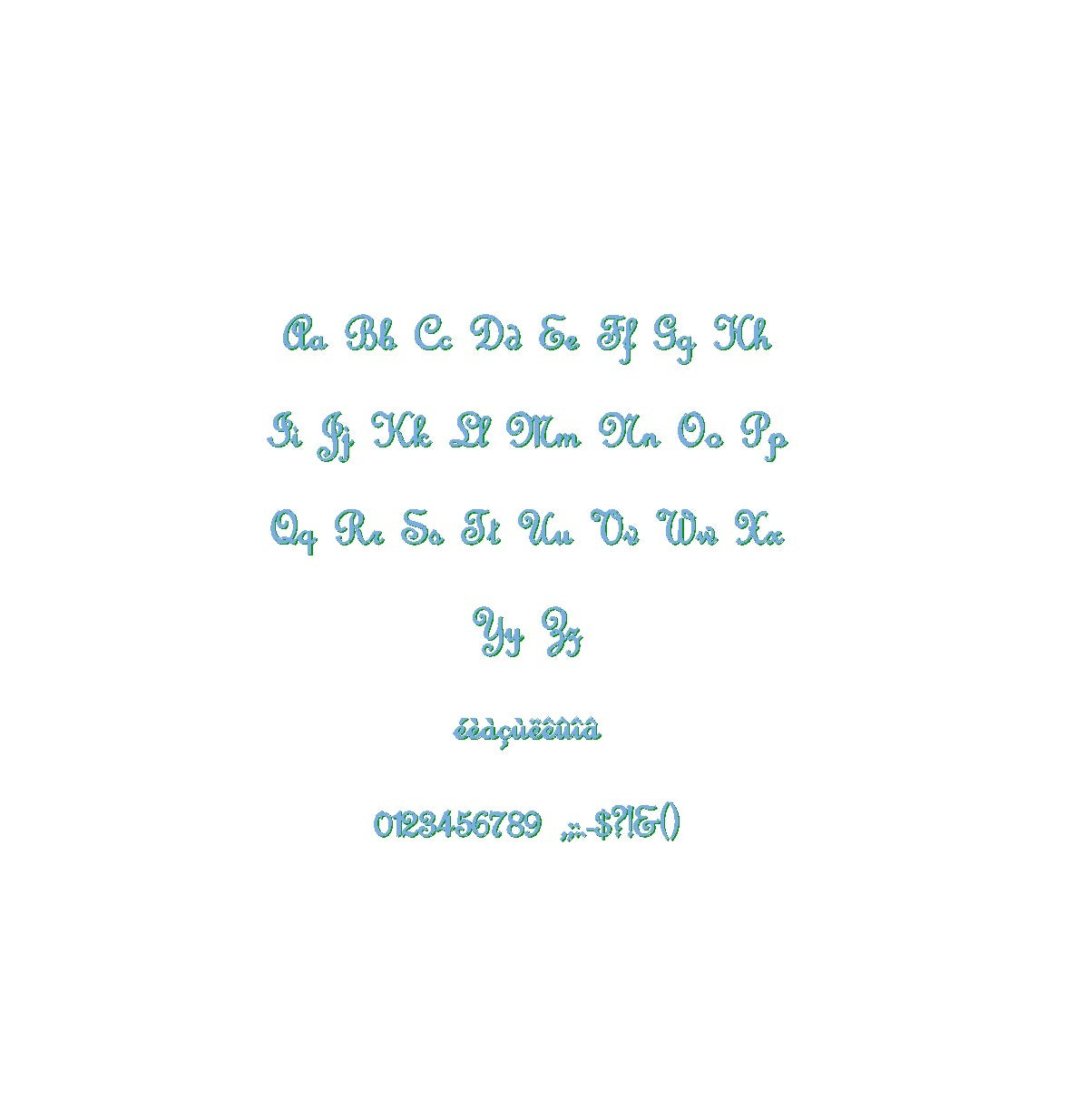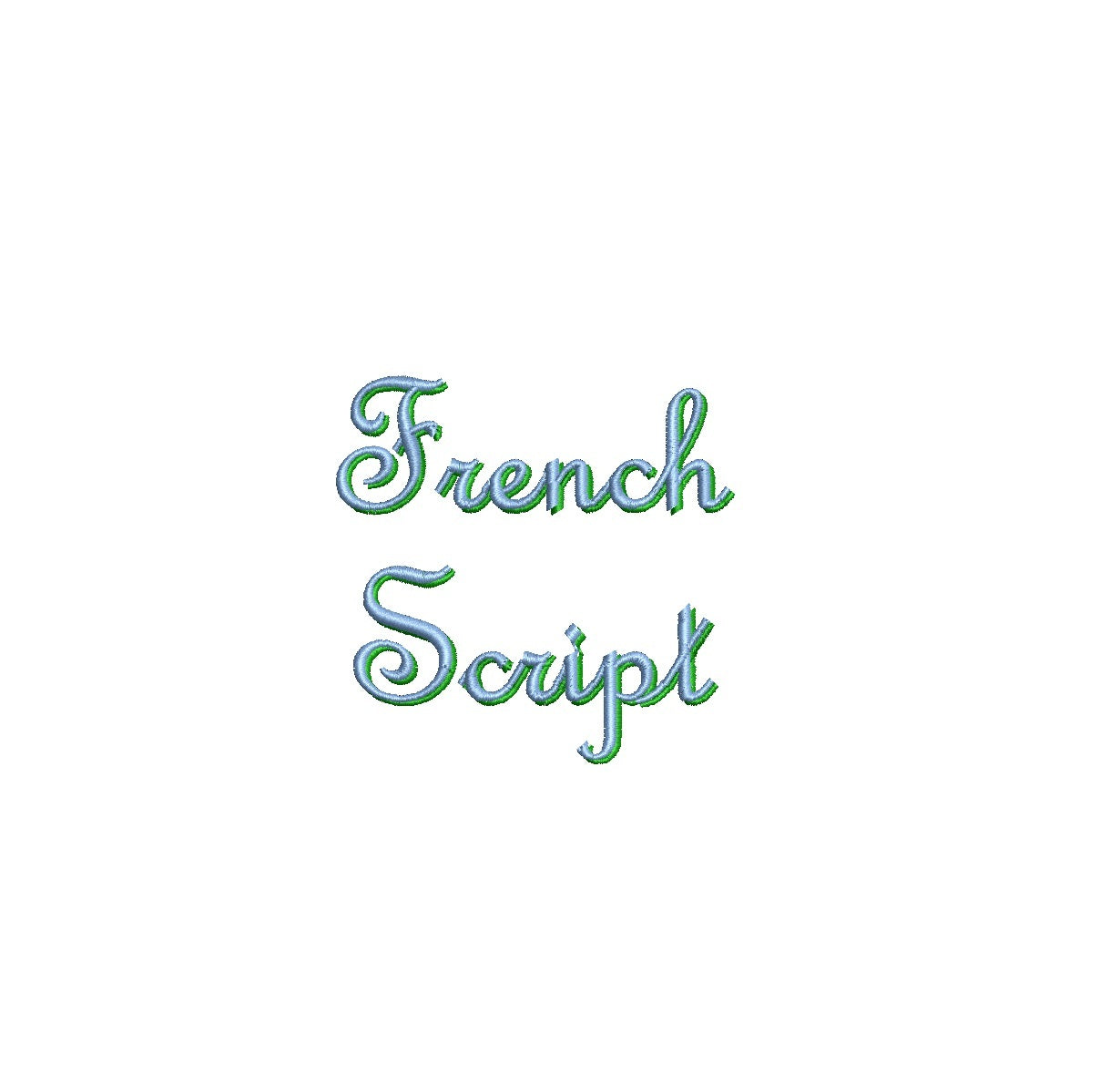
Elevate your designs with the elegant French Script Shadow ESA font. Fully compatible with Wilcom Studio e4.5.6 and Hatch 3 versions and up, this font adds a touch of timeless sophistication and romantic charm to your projects. The graceful shadows and flowing lines of this font create a captivating visual impact that sets your designs apart. Streamline your creative process and achieve flawless results by utilizing this font with industry-leading software. Upgrade your projects with the compatibility of French Script Shadow ESA font and craft visuals that evoke a sense of refinement. Embrace elegance and creativity for your design journey today!